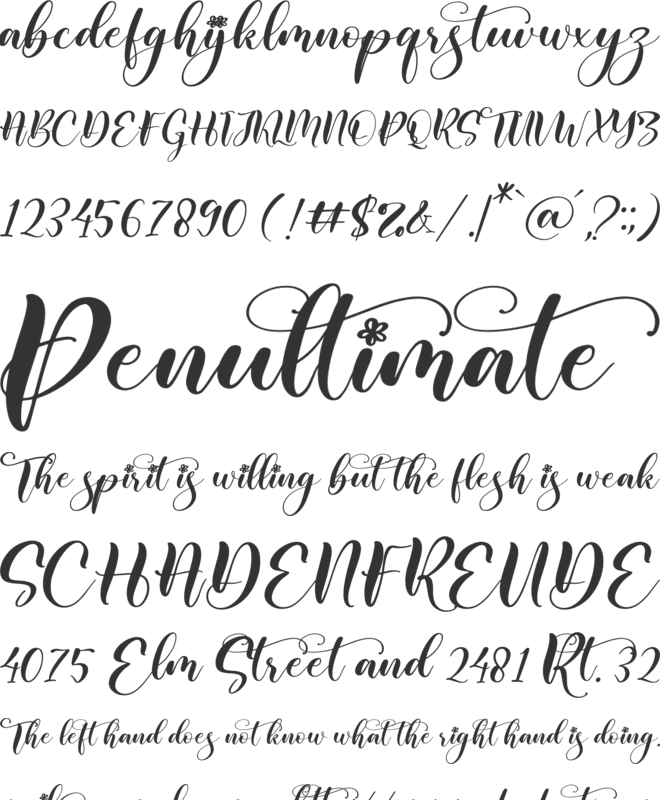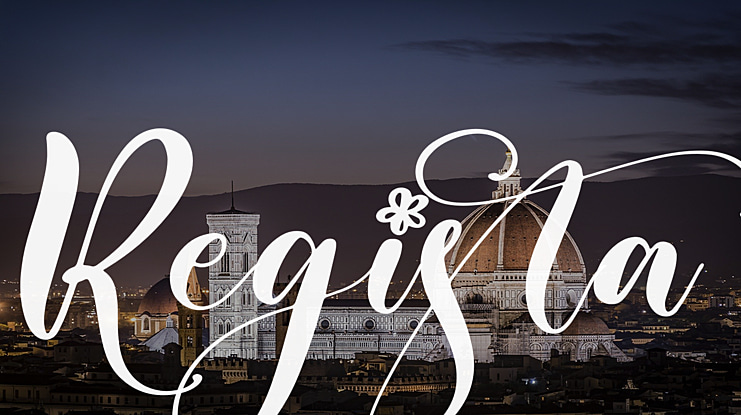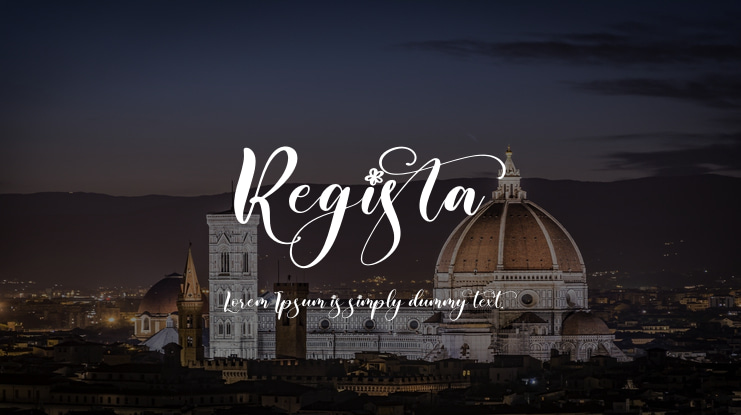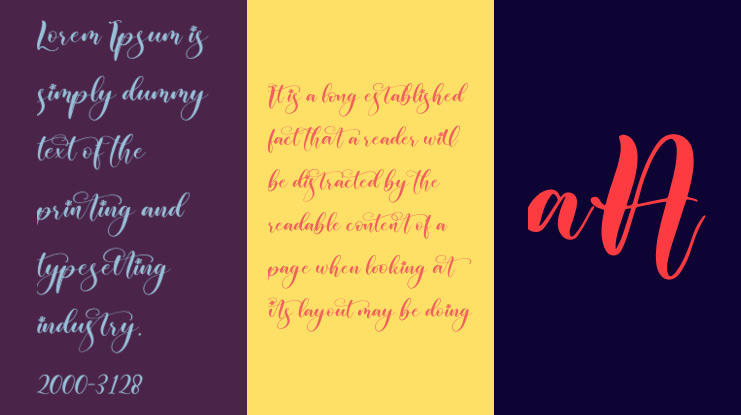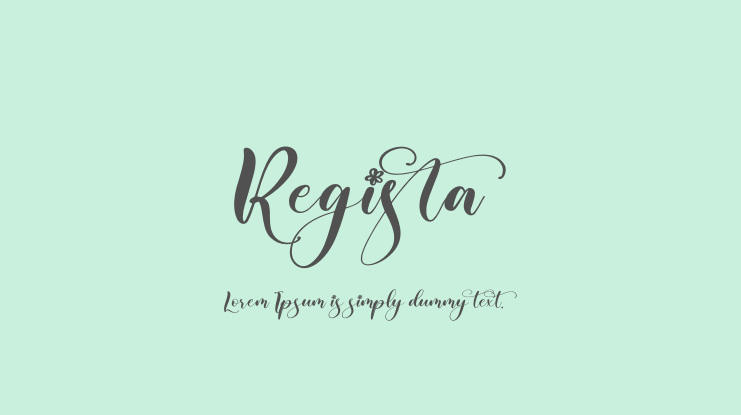
Regista Font
Regista is a stylish script beautiful font with 2 styles: Regular, Italic and includes a full set of uppercase and lowercase letters, multilingual symbols, numerals, punctuation, alternates, swash, and ligatures.
Regista Features :
- Multilanguage
- Ligatures
- Alternates
- Swash
- PUA Encoded